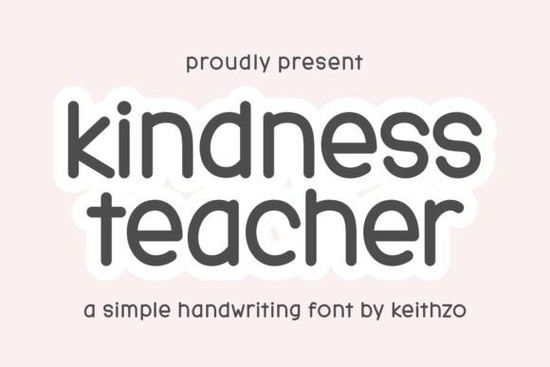
If you’ve ever wanted your designs to feel like a warm hug in typeform, the Kindness Teacher Font might be exactly what you’re looking for. It’s a friendly, handwritten-style font with just enough simplicity and charm to make everyday projects feel personal and thoughtful without trying too hard. Whether you’re crafting teacher appreciation cards, designing classroom labels, or personalizing planner pages, this font adds a gentle, human touch that printed fonts often miss.
What makes Kindness Teacher stand out is its balance: it’s legible enough for practical use but still carries that cozy, hand-lettered vibe. You don’t need advanced design skills to make it look great it works beautifully at small sizes for notes and shines just as brightly on large-format prints like welcome banners or wall art.
Who is this font best for?
This font resonates especially well with:
- Teachers and educators creating classroom materials, student awards, or parent newsletters.
- Small business owners who sell greeting cards, printable planners, or custom stationery online.
- Crafters and hobbyists making scrapbook layouts, gift tags, or DIY party decor.
- Print-on-demand sellers looking for authentic-looking handwritten styles that feel genuine, not generic.
Unlike overly stylized script fonts that can become hard to read, Kindness Teacher keeps things clear while staying expressive. That’s why it pairs so well with clean sans-serif fonts for contrast or even with other approachable scripts like Magnolia Font when you want layered warmth without visual clutter.
How can you use Kindness Teacher in real projects?
Because of its versatile personality, this font fits naturally into both digital and physical creations:
- Classroom printables: Weekly schedules, behavior charts, or “You Did It!” certificates.
- Personalized gifts: Mugs, tote bags, or photo frames with short affirmations or names.
- Social media graphics: Quote posts, story highlights, or seasonal announcements with a handmade feel.
- Event stationery: Birthday invites, baby shower thank-you cards, or teacher retirement messages.
For those who love mixing handwriting styles, consider pairing it with something bouncier like Doodline Font for accents, or keep it minimal by using Kindness Teacher alone with generous white space. If you're going for heartfelt sincerity like in a note from a student to a teacher it really doesn’t need embellishment.
How does it compare to similar fonts?
There’s no shortage of handwritten fonts out there, but many lean either too casual (almost scribble-like) or too polished (losing that authentic pen-on-paper texture). Kindness Teacher lands right in the sweet spot. It’s more structured than Daddy Heart Font, which has playful loops and exaggerated tails, and less formal than Summertime Sadness Font, which leans into elegant cursive.
If you enjoy the natural flow of Garnesline Font but want something even simpler for everyday use, Kindness Teacher offers that accessible, no-fuss alternative. It’s the kind of font you reach for when you want your message to feel like it came straight from the heart not from a template.
Tips for getting the most out of this font
To keep your designs feeling fresh and intentional:
- Avoid overusing it. Because it’s so inviting, it’s tempting to use it everywhere but reserve it for headlines, short quotes, or handwritten-style elements to maintain impact.
- Adjust letter spacing slightly if using it for longer phrases; a tiny bit of tracking can improve readability without losing charm.
- Pair with neutral colors like soft gray, warm beige, or sage green to let the font’s personality shine without competing visuals.
And remember: fonts like this work best when they support your message, not distract from it. Kindness Teacher isn’t flashy but that’s precisely why it feels so genuine.